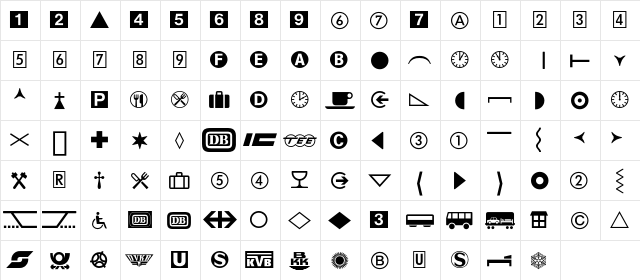
DB Pi One BQ Regular
Design Context for DB Pi One BQ Typeface
DB Pi One BQ offers clean, dependable letterforms without strong stylistic allegiance, making it a practical choice for designers who need flexibility.